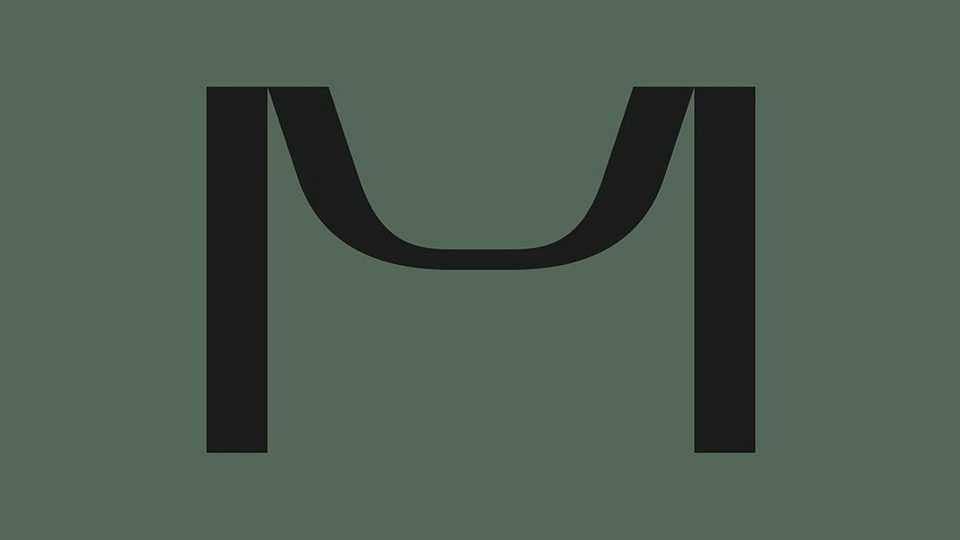
Download Rebel Type Dog font, a modular display typeface that lives in a rigid grid, but has a touch of humanity. Some modules try to break the rules, but they are forced to remain part of this world of dystopia.
Designer: Andrii Kurylo